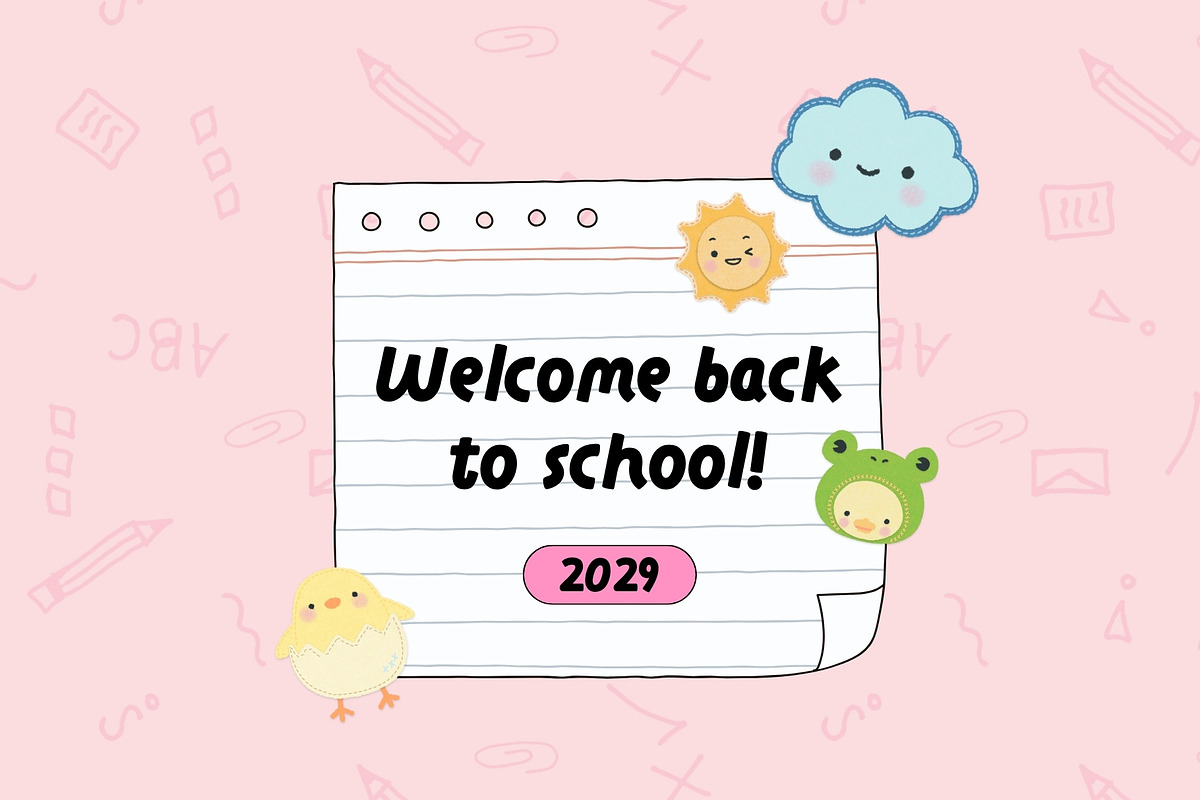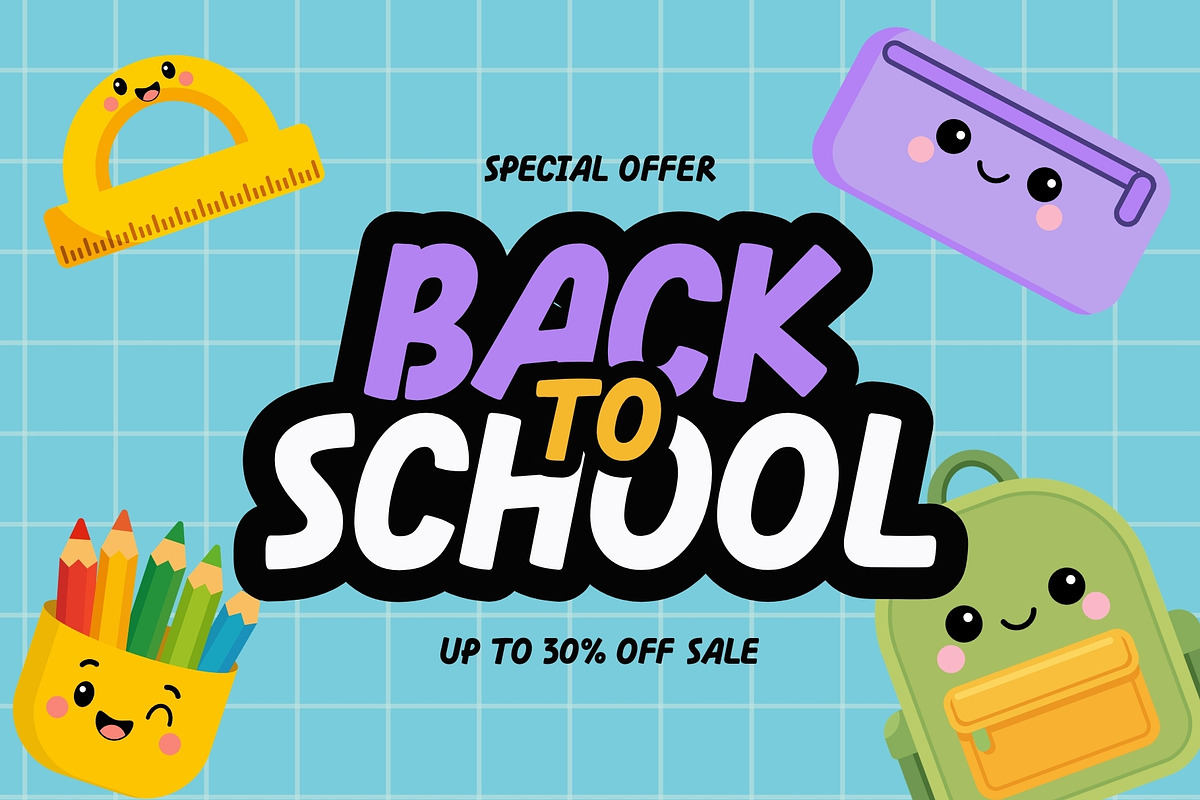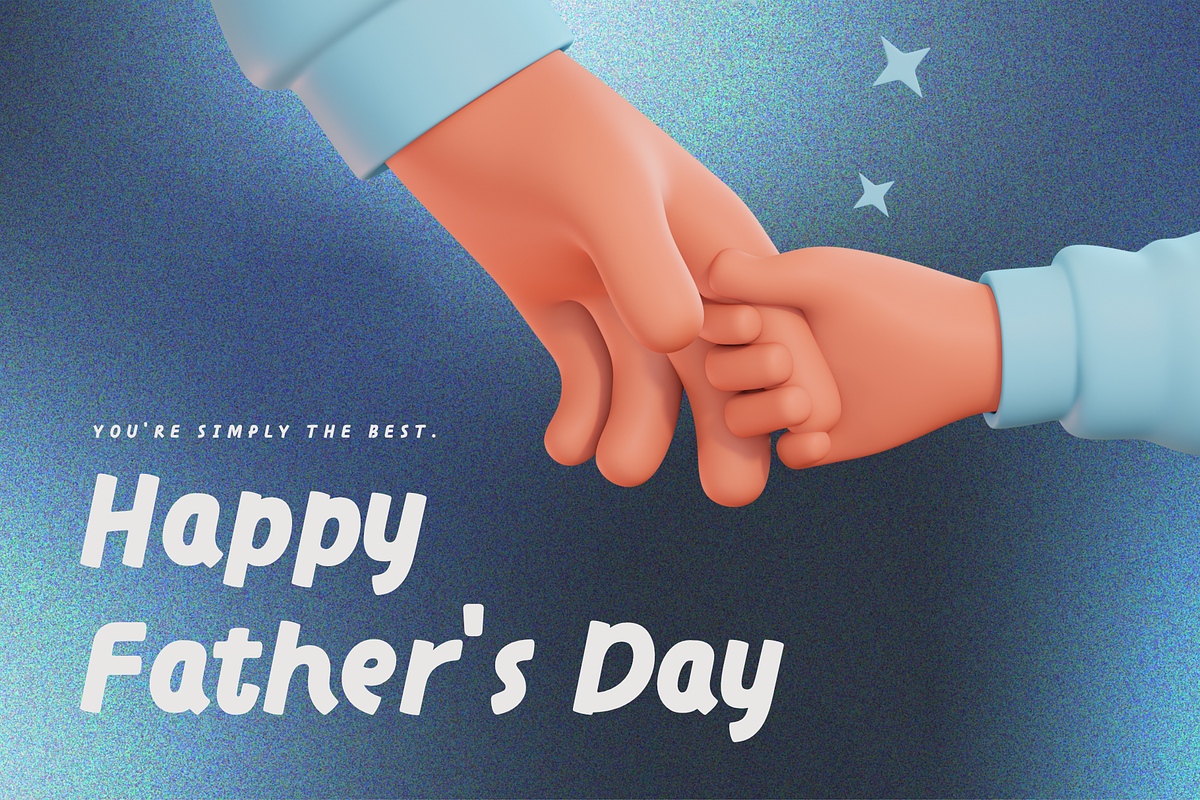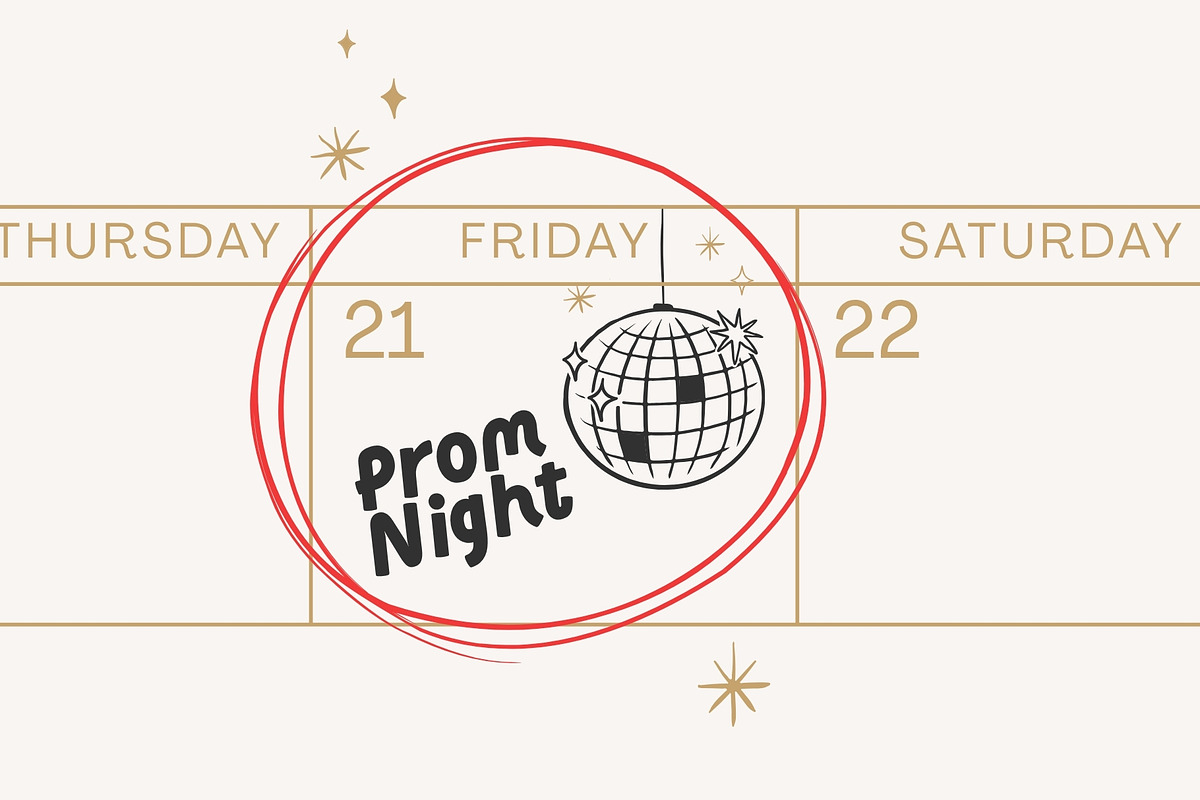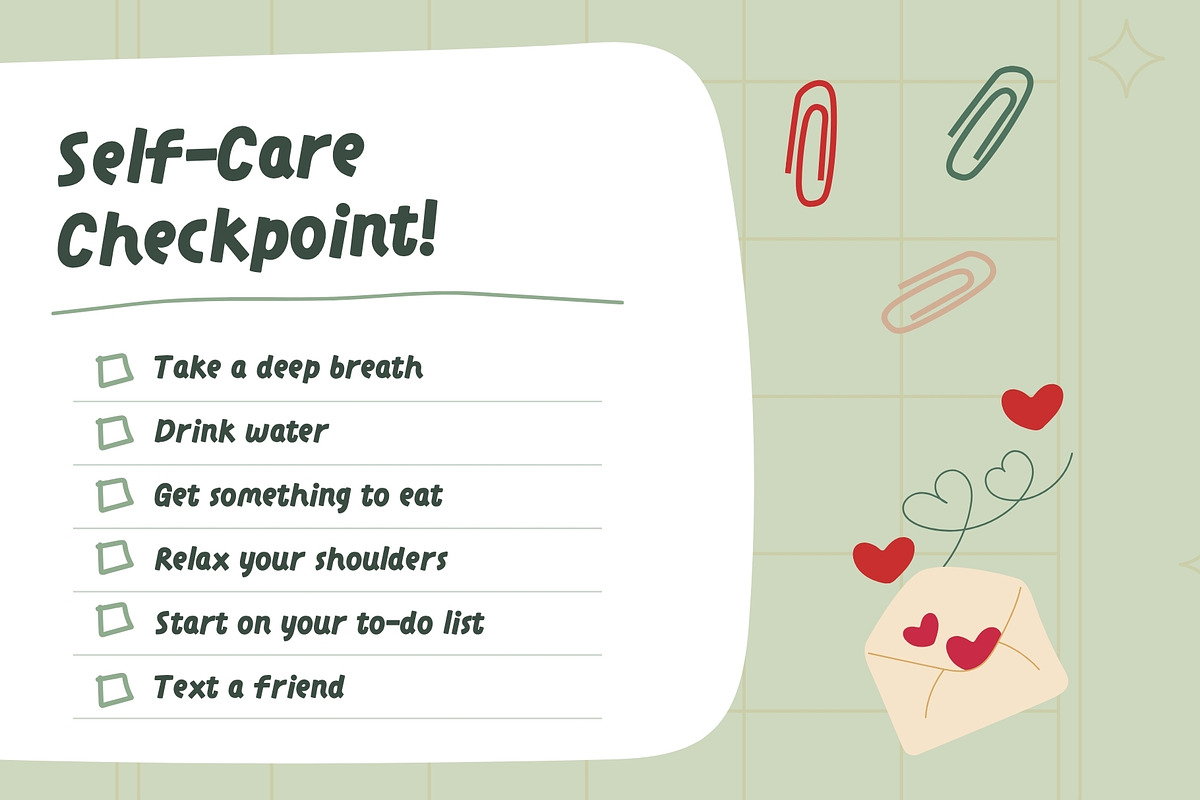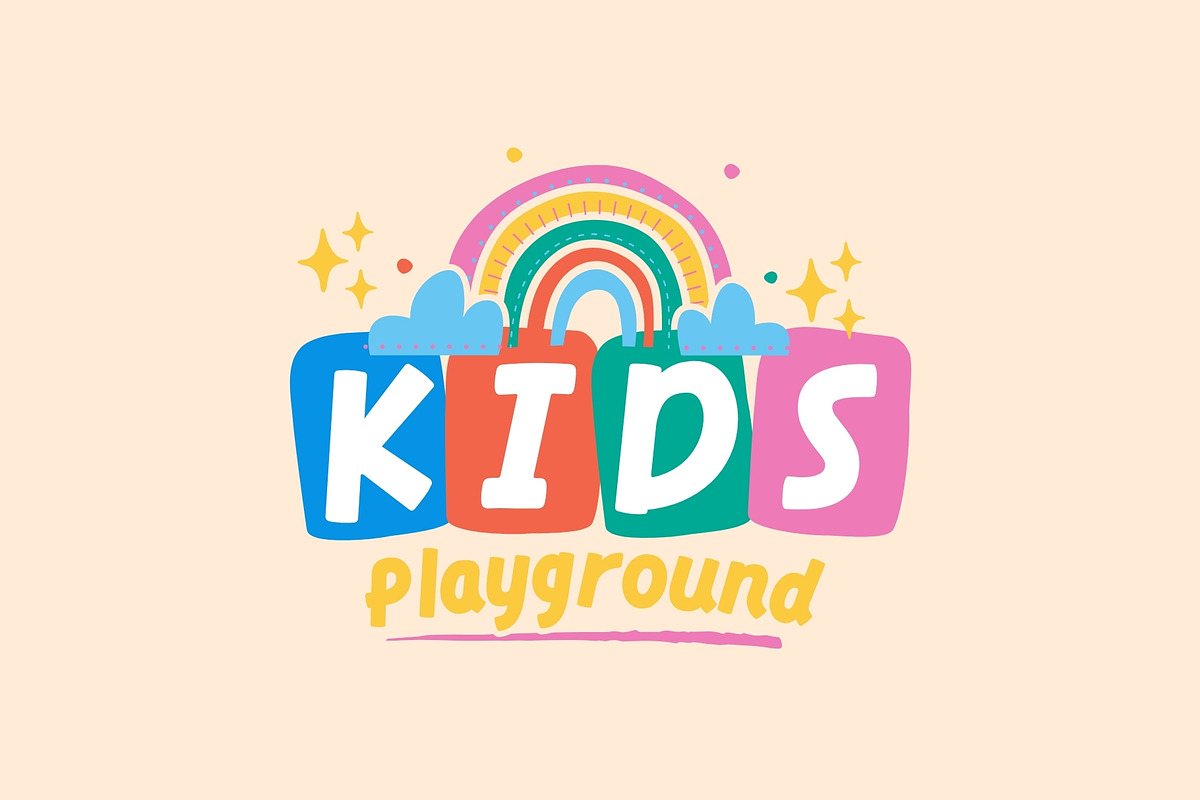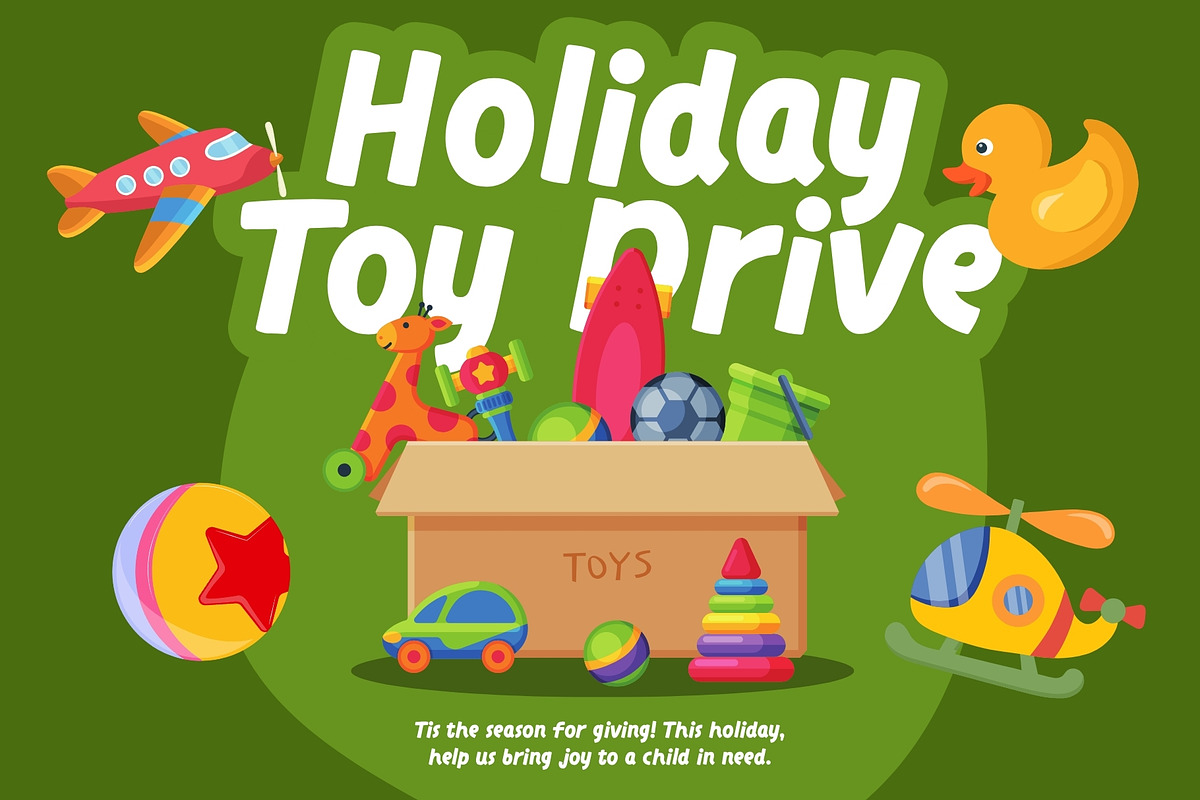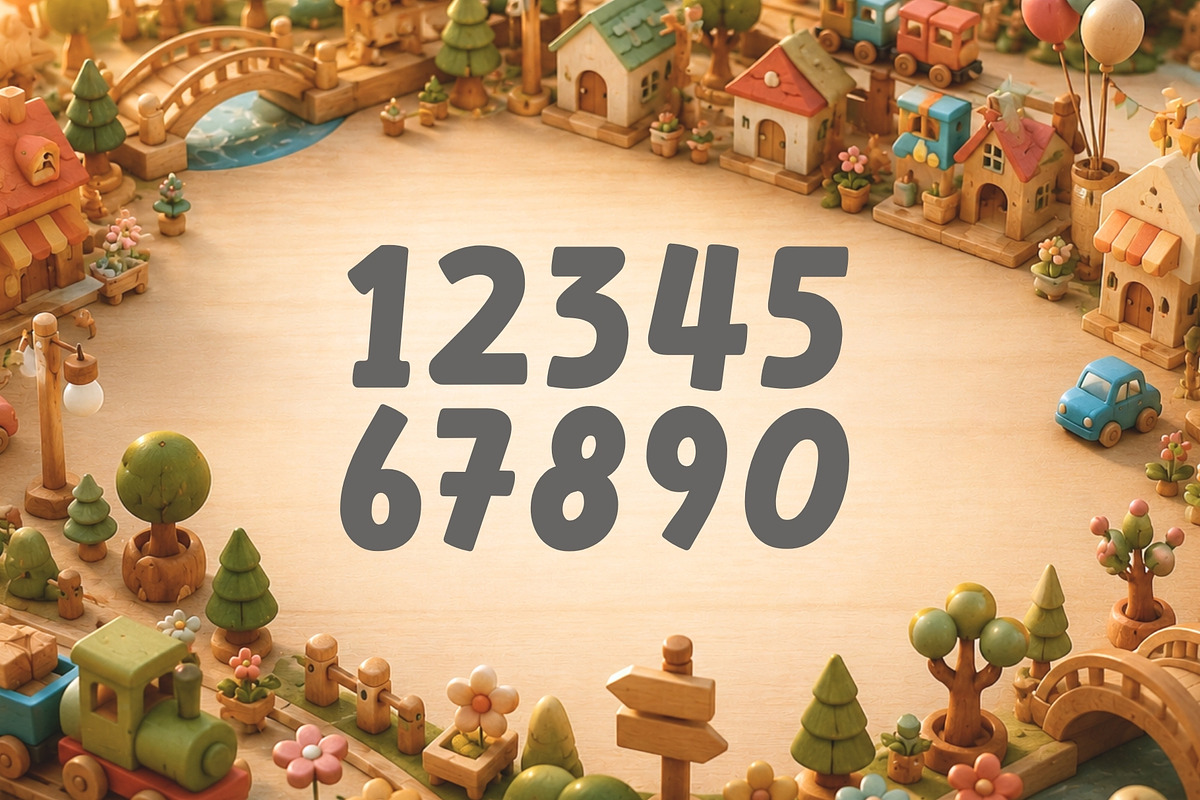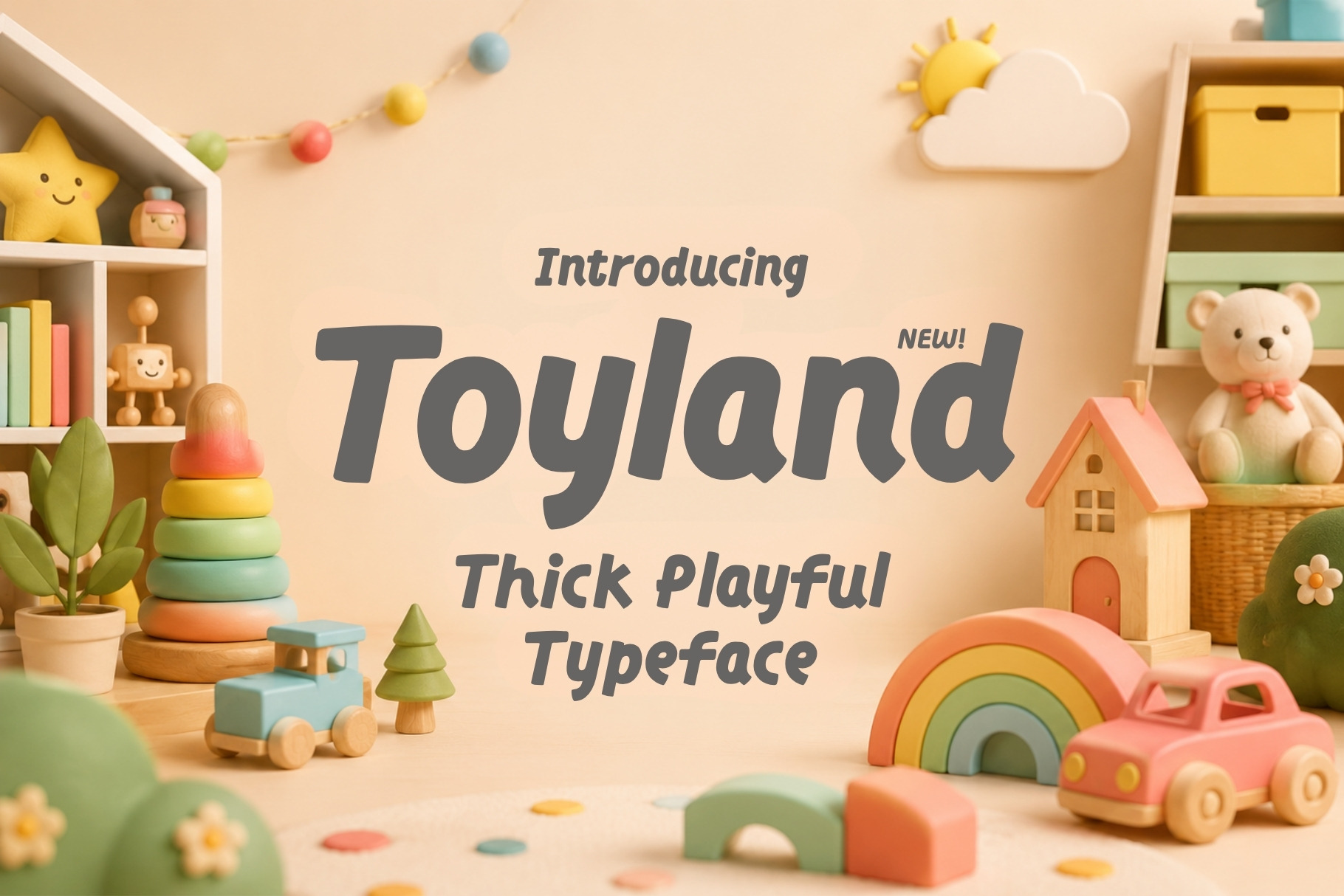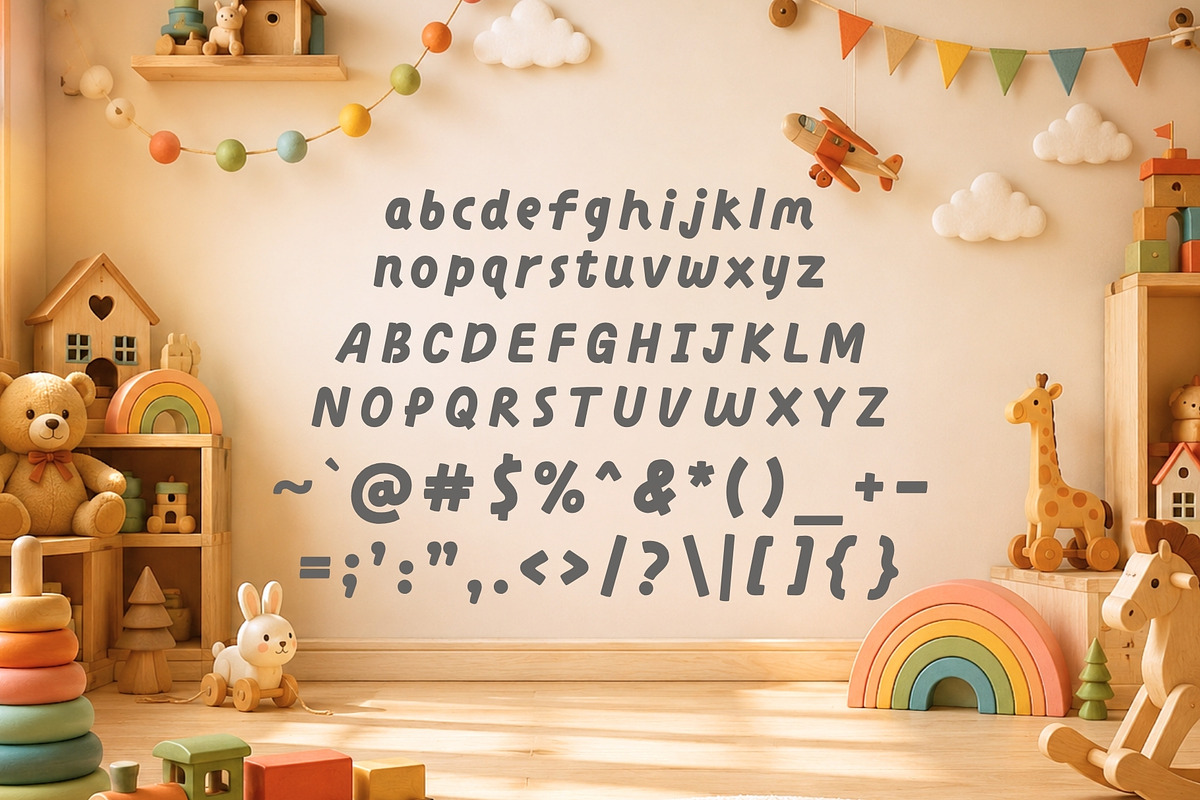
Toyland - Playful Rounded Kids Font
Toyland brings pure childhood joy into every letter. Designed with irresistibly rounded shapes, chunky proportions, and a playful personality, this cheerful sans serif typeface is made to spark imagination and creativity. Whether you're designing for toddlers, classrooms, birthday parties, or fun-loving brands, Toyland instantly creates a welcoming and friendly atmosphere that both kids and parents will love.
Every character has been carefully crafted to feel soft, approachable, and full of personality while maintaining excellent readability across print and digital projects. Its clean construction and modern design make it incredibly versatile—from colorful classroom decorations and educational resources to playful logos, toy packaging, storybooks, YouTube thumbnails, Cricut crafts, stickers, and children's apparel.
Toyland is the perfect companion for teachers, parents, crafters, small businesses, and designers looking to create projects that feel joyful, memorable, and full of positive energy. The rounded letterforms make every word feel inviting, while the bold weight ensures your designs stand out with confidence.
Whether you're creating preschool worksheets, daycare branding, birthday invitations, classroom posters, educational games, nursery décor, or fun social media graphics, Toyland transforms ordinary text into something that feels playful, warm, and full of imagination.
Bring smiles to every project with Toyland—a playful rounded typeface designed to make creativity feel like child's play.